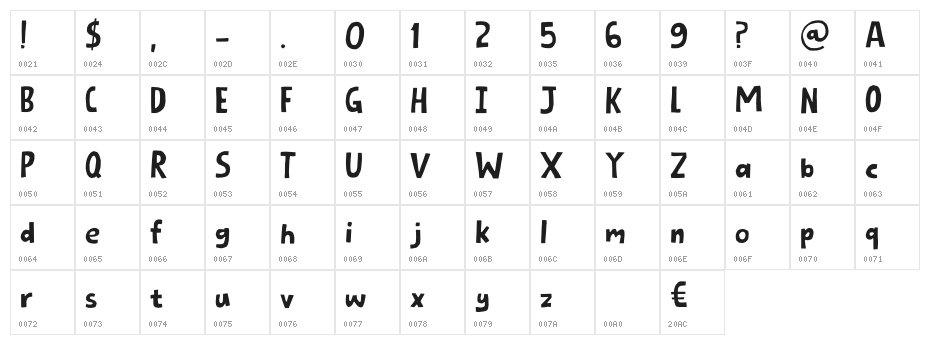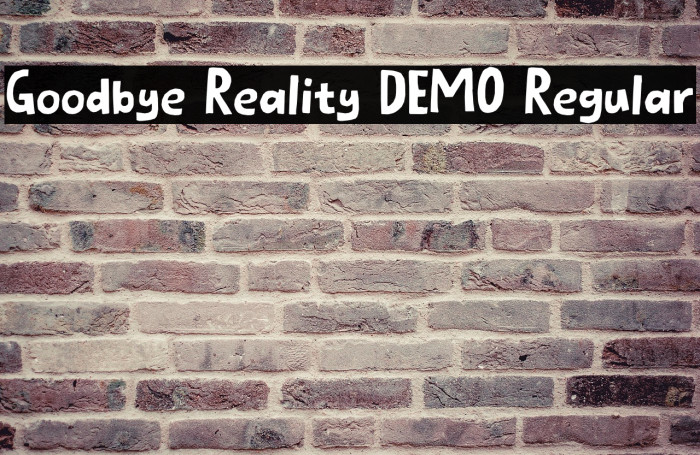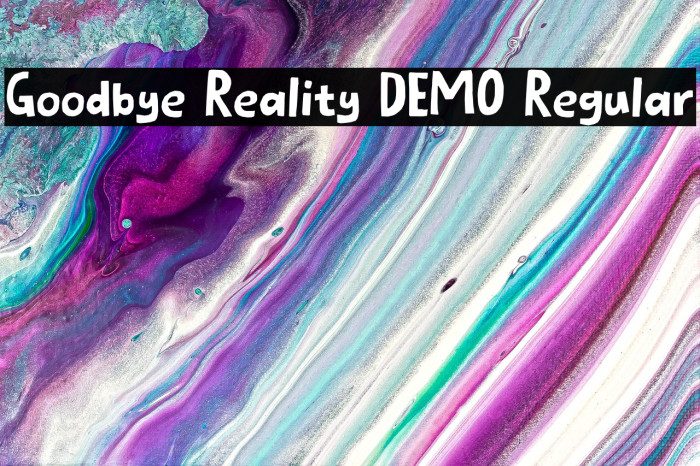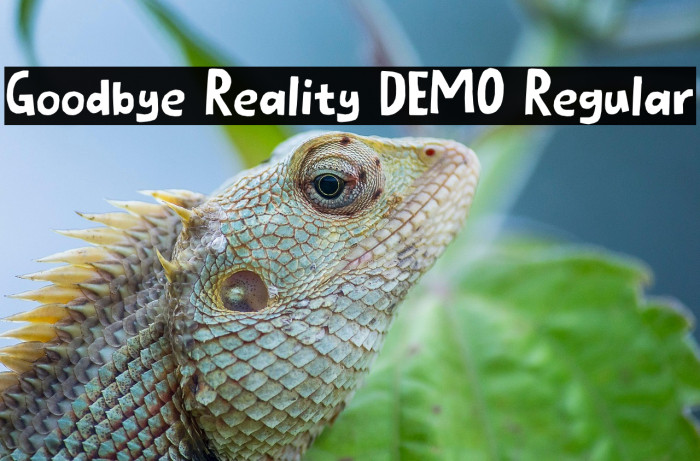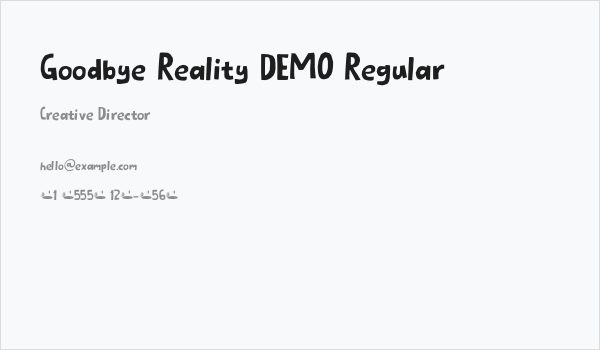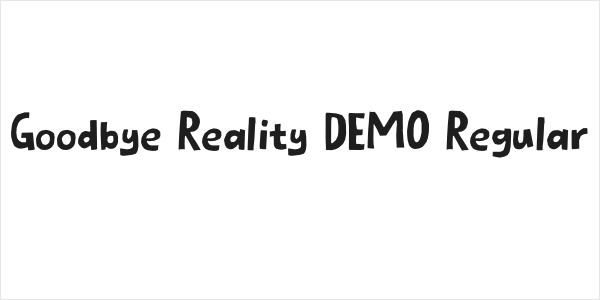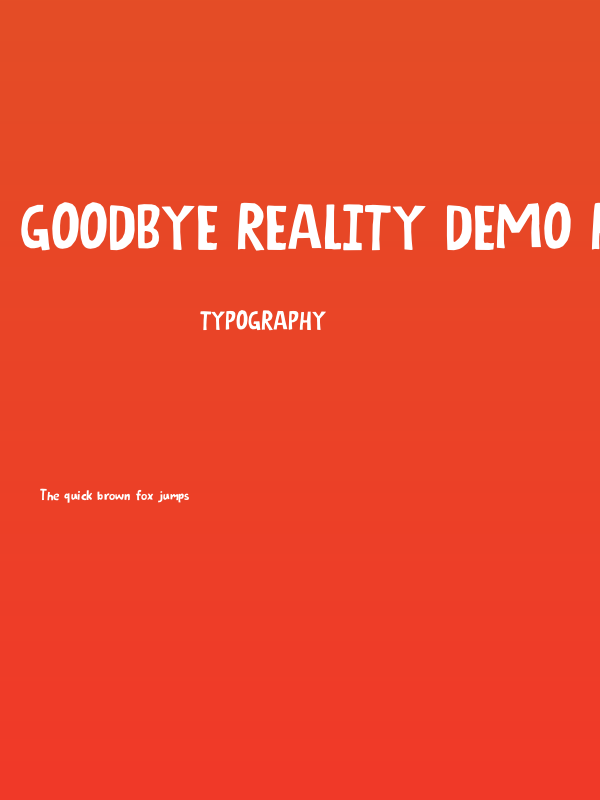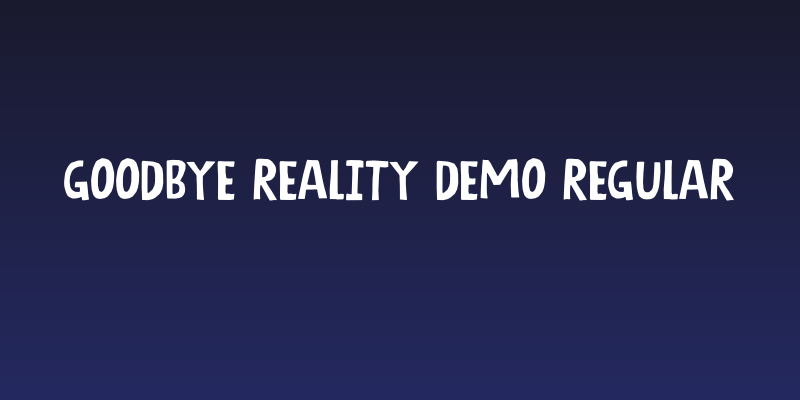
Goodbye Reality DEMO Regular Font
Goodbye Reality DEMO Regular Description
This font features a playful and whimsical design, characterized by its irregular and hand-drawn appearance. The letters have a slightly uneven baseline, giving them a dynamic and lively feel. The strokes are bold and rounded, with a consistent thickness that adds to the font's approachable and friendly nature. The numerals and special characters maintain this playful style, making the font suitable for creative and informal applications. Its unique style makes it stand out, capturing attention with its quirky charm.